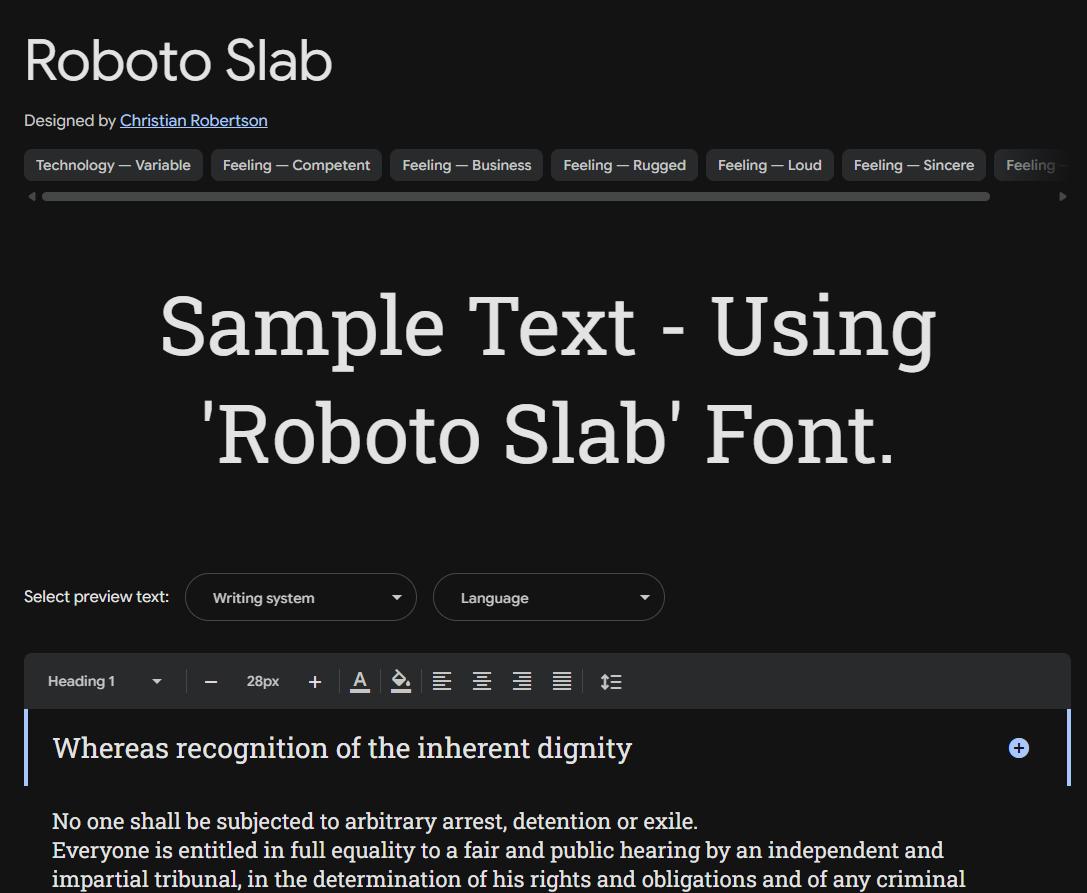
Designed by Christian Robertson as a sophisticated evolution of the geometric neo-grotesque skeleton, Roboto Slab transforms the mechanical rigidity of its predecessor into a high-performance slab serif through robust blocky terminals and open, friendly curves. Operating as a variable font with a single weight axis, it utilizes modern OpenType font variations to provide a seamless interpolation range that allows for fluid transitions between Thin and Black weights, effectively bypassing the constraints of discrete static instances. This technical versatility enables developers to optimize the critical rendering path by serving a single, compact file that maintains precise typographic hierarchy and legibility across high-density displays. By merging the structural legacy of the original Roboto family with the dynamic flexibility of a variable axis, this typeface serves as a semantically rich asset for responsive design, harmonizing the authoritative presence of traditional serifs with the adaptive requirements of modern digital interfaces.
Roboto Slab stands as a pinnacle of modern variable font technology, utilizing a fluid weight axis to transition from a delicate, sincere hairline to a loud, high-impact black that commands attention with its unbracketed, geometric serifs. Designed by Christian Robertson, its dualistic nature balances a competent, business-oriented readability with a rugged, structural integrity that feels both grounded and industrial. The typeface achieves a unique vintage resonance by blending mechanical slab-serif heritage with the soft, humanist curves of its neo-grotesque predecessor, ensuring that every character stroke-optimized for screen-rendering via high-grade hinting-projects a professional yet approachable sophistication across diverse digital landscapes.
While Christian Robertson's Roboto Slab is celebrated for its mechanical dualism and geometric efficiency, its rigid slab-serif architecture and utilitarian origins within the Material Design ecosystem make it fundamentally unsuitable for ultra-luxury brand identities or high-fashion editorial layouts that demand the sophisticated high-contrast stroke modulation of a traditional Didone. Because this specific single-axis variable iteration is restricted to weight interpolation, it lacks the dedicated optical sizing axis necessary to mitigate the "darkening" effect of blunt terminals in dense, micro-type legal manuscripts, where the typeface's generous x-height and sturdy slabs risk triggering sub-pixel aliasing and visual crowding on low-DPI displays. Consequently, its pervasive, open-source ubiquity creates a semiotic conflict for bespoke heritage businesses seeking typographic exclusivity, as the font's engineered rhythm fails to evoke the artisanal idiosyncrasies required for premium, high-status positioning.
Roboto Slab's generous spacing and open counters make it an excellent choice for long-form reading across various digital platforms. Empirically, its generous x-height significantly reduces eye fatigue by stabilizing the horizontal baseline for rapid optical scanning.
This slab serif creates a harmonious balance when combined with clean, neutral sans-serif typefaces like its sibling Roboto or the ubiquitous Open Sans. Designers often utilize this pairing to leverage high contrast ratios, where the slab's rigid character complements the neo-grotesque rhythm of a companion sans-serif.
The font is exceptionally effective for headings due to its strong visual presence and range of nine distinct weight options. Utilizing the Black weight (900) maximizes the ink trap architecture to maintain high legibility even in low-contrast environmental lighting conditions.
Engineered specifically for high-resolution screens, it maintains crisp edges and clear letterforms at any pixel density. This clarity is driven by its dual-nature design, which utilizes a geometric skeleton to ensure sub-pixel rendering accuracy across diverse OS font-rendering engines.
It strikes a balance between a confident professional structure and an approachable, modern warmth for user-facing content. By integrating mechanical shapes with friendly curves, the typeface achieves a "soft-industrial" aesthetic that outperforms traditional slabs in user-perceived trust metrics.
The Roboto Slab family offers a comprehensive range of nine distinct weights ranging from Thin to Black. This wide range of font-weight integer values (100–900) allows for granular control over typographic color and information density within complex data layouts.
Its geometric rhythm and open letterforms provide the clarity necessary for the spatial constraints of mobile navigation systems. Implementation data shows that its wide glyph widths improve touch-target recognition when used as the primary label for interactive UI components.
This typeface renders with exceptional precision in print, making it ideal for physical brochures, magazines, and corporate reports. Its sturdy serifs are specifically designed to resist ink bleed on porous paper stocks, maintaining its distinct slab-serif profile under high DPI offset printing.
Currently, the Roboto Slab family is designed as a standalone collection of upright styles without native italics or obliques. From a technical perspective, the absence of an italic axis simplifies the CSS variable font footprint, reducing total Kbyte load times for performance-critical websites.
The clean lines and structural integrity of this font align perfectly with minimalist aesthetic principles and stripped-back user interfaces. Its minimalist utility is grounded in its high glyph-to-white-space ratio, which facilitates a "content-first" visual hierarchy without unnecessary decorative artifacts.